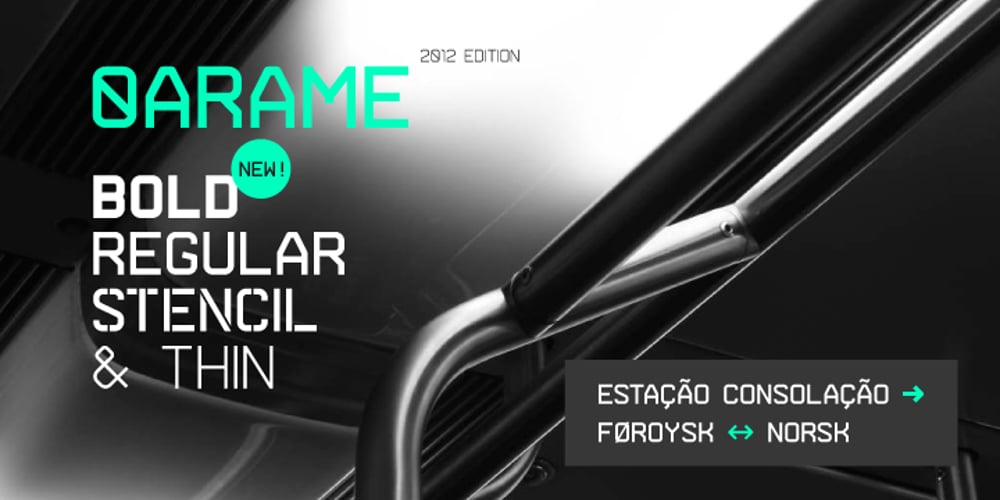
Arame Font Family was designed by Dimitre Lima and published by DMTR.ORG. Arame contains 8 styles and family package options. This font with the technical feel of movies and games, was featured in Iron Man Avengers, Halo 4 and Game Reaktor Magazine. Version 1.2 features Cyrillic, arrows and reorganized family (Monospaced in all variations) and a new weight.